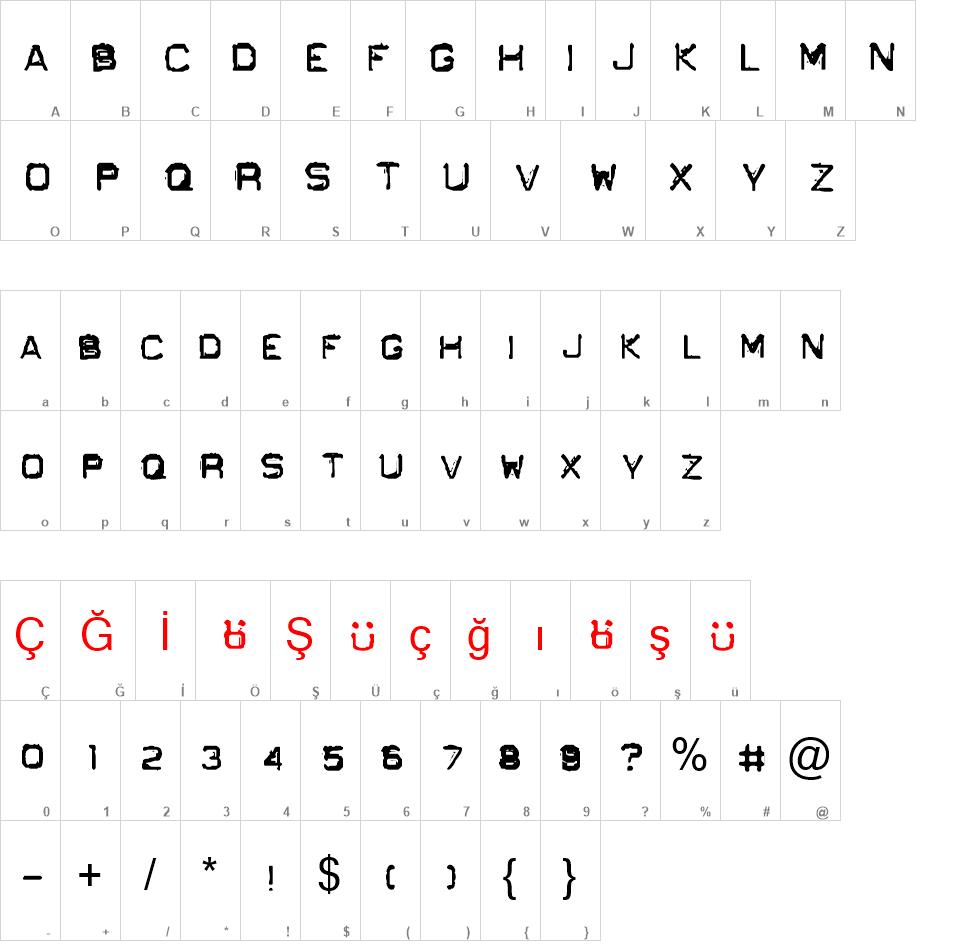
GF Ordner font
GF Ordner
GF Ordner was scanned from a Dymo labeler- but it is much heavier than FF Dynamoe. It's GFonts most popular font with thousends of downloads, and it's award-winning!
GF Ordner Inverted font